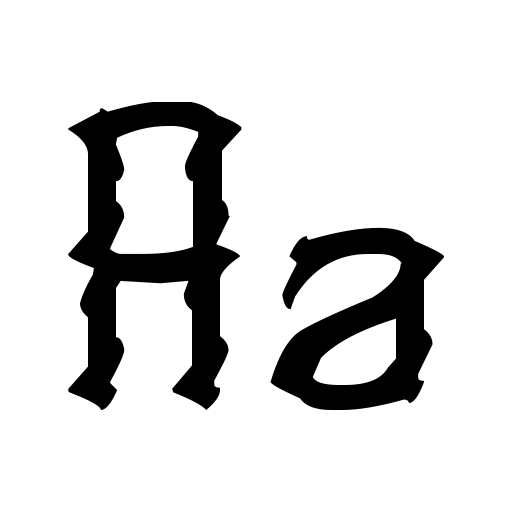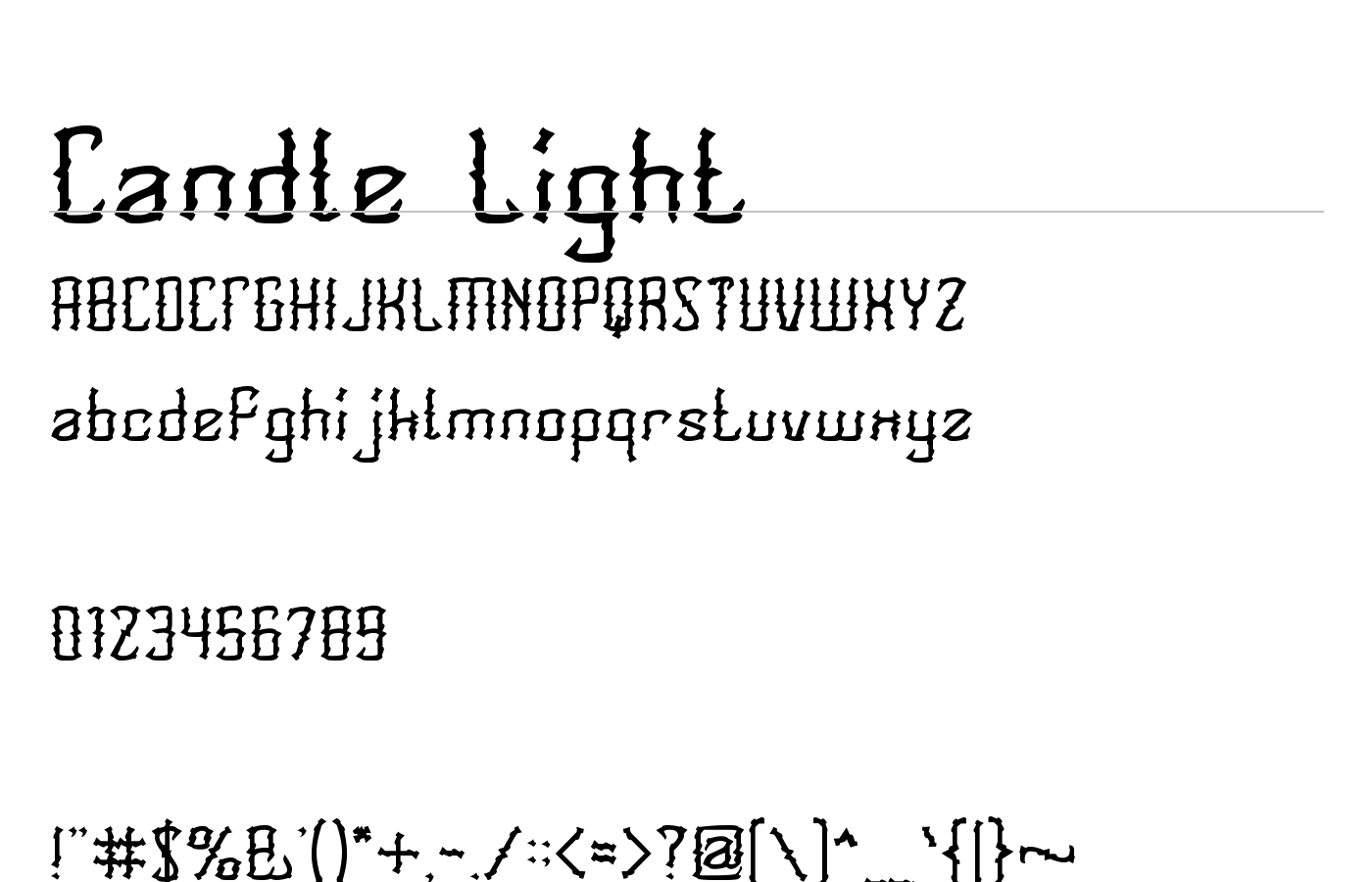
Candle Light is a distinctive serif font with a textured, slightly jagged stroke that evokes a handcrafted, rustic feel. Its narrow width and medium x-height combined with subtle contrast give it a vintage yet casual personality, making it ideal for creative, atmospheric projects like posters, packaging, or branding that want to convey warmth and uniqueness. This font works best in display sizes where its intricate details and charming imperfections can shine.
Candle Light Font